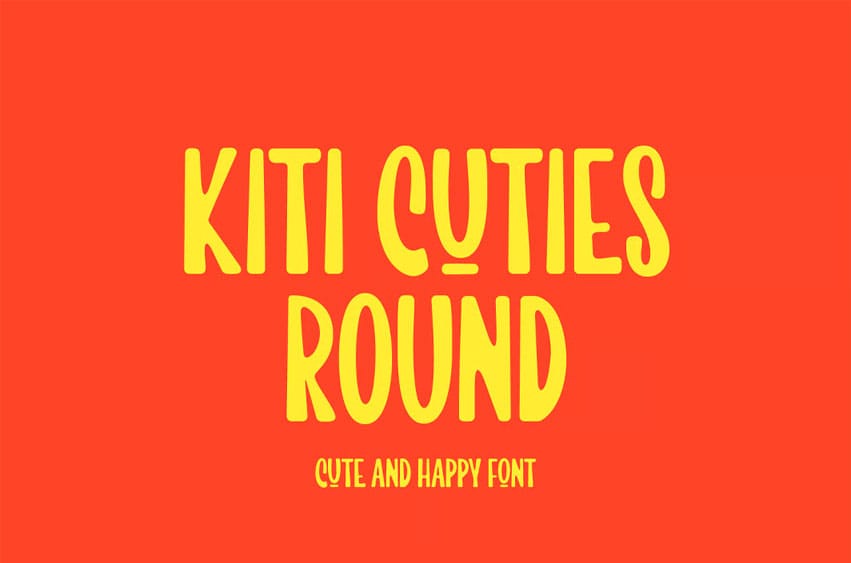
Kiti Cuties Round Font is a playful sans serif font, Kiti Cuties – Round is a allcaps font with 4 variations letter in lowercase e,h,o,u that makes your design looks more cheerfull.
Kiti cuties is made to help you create a kids and fun theme design such as birthday card, baby shower card, greeting card and many more.